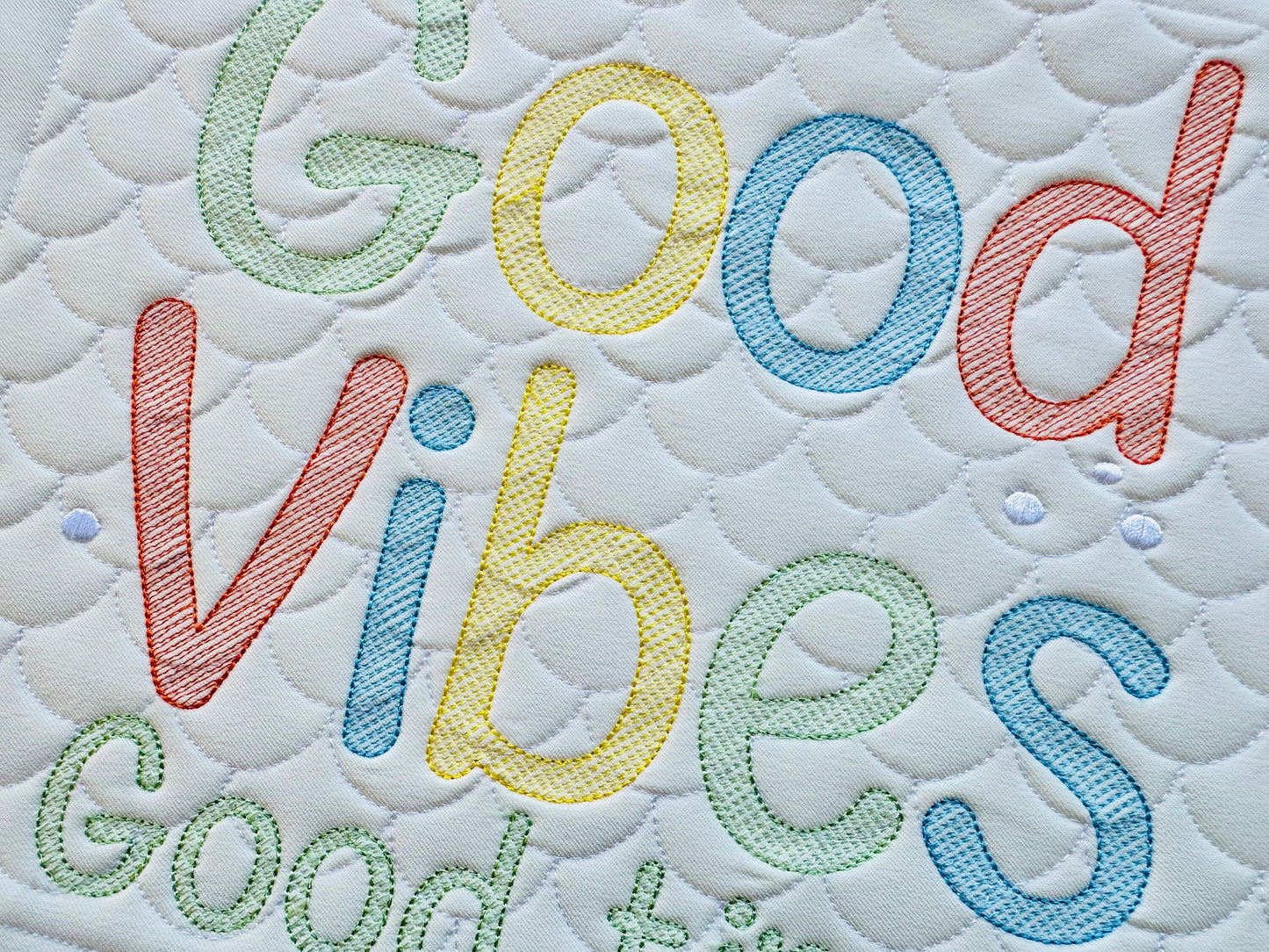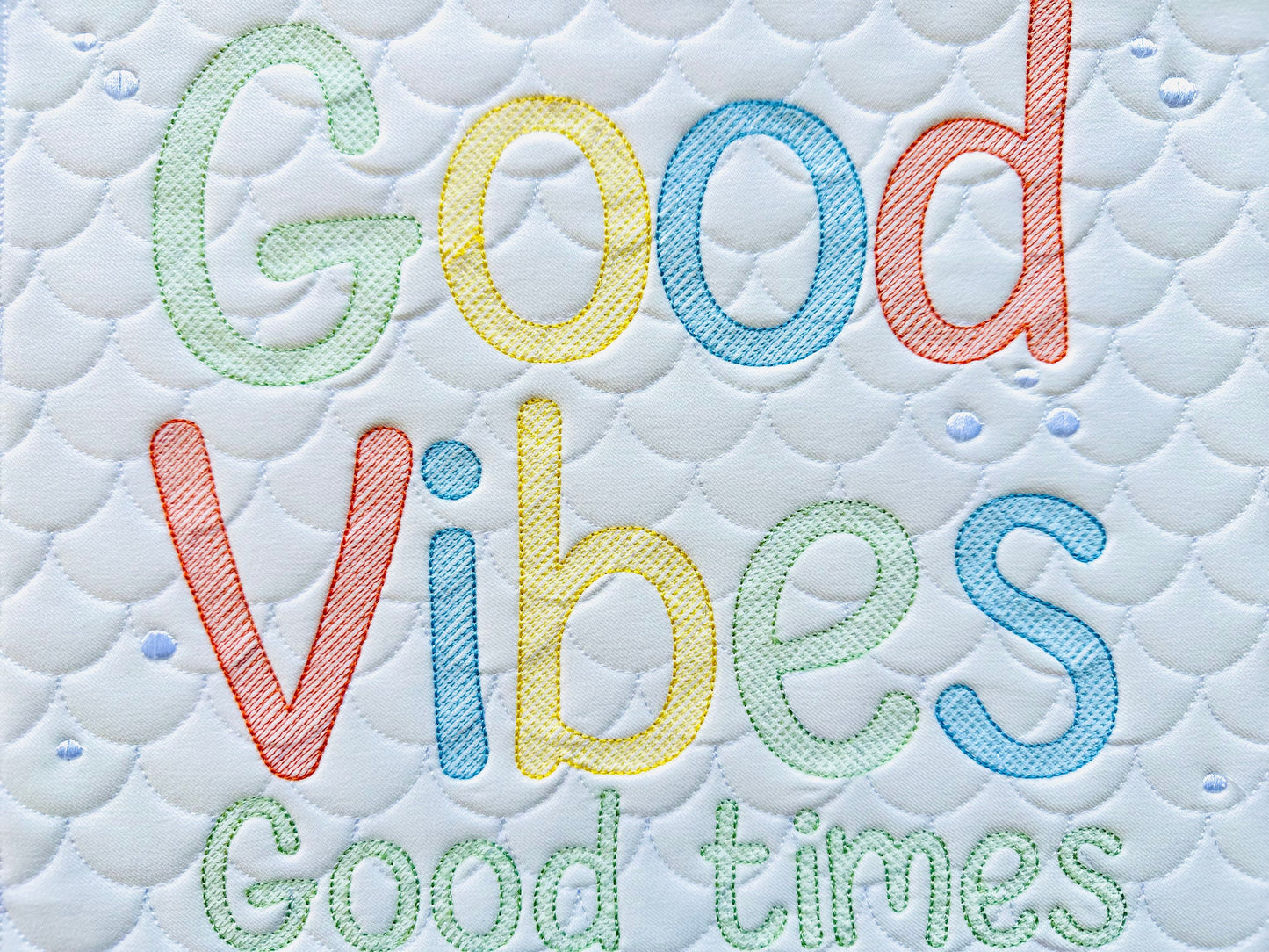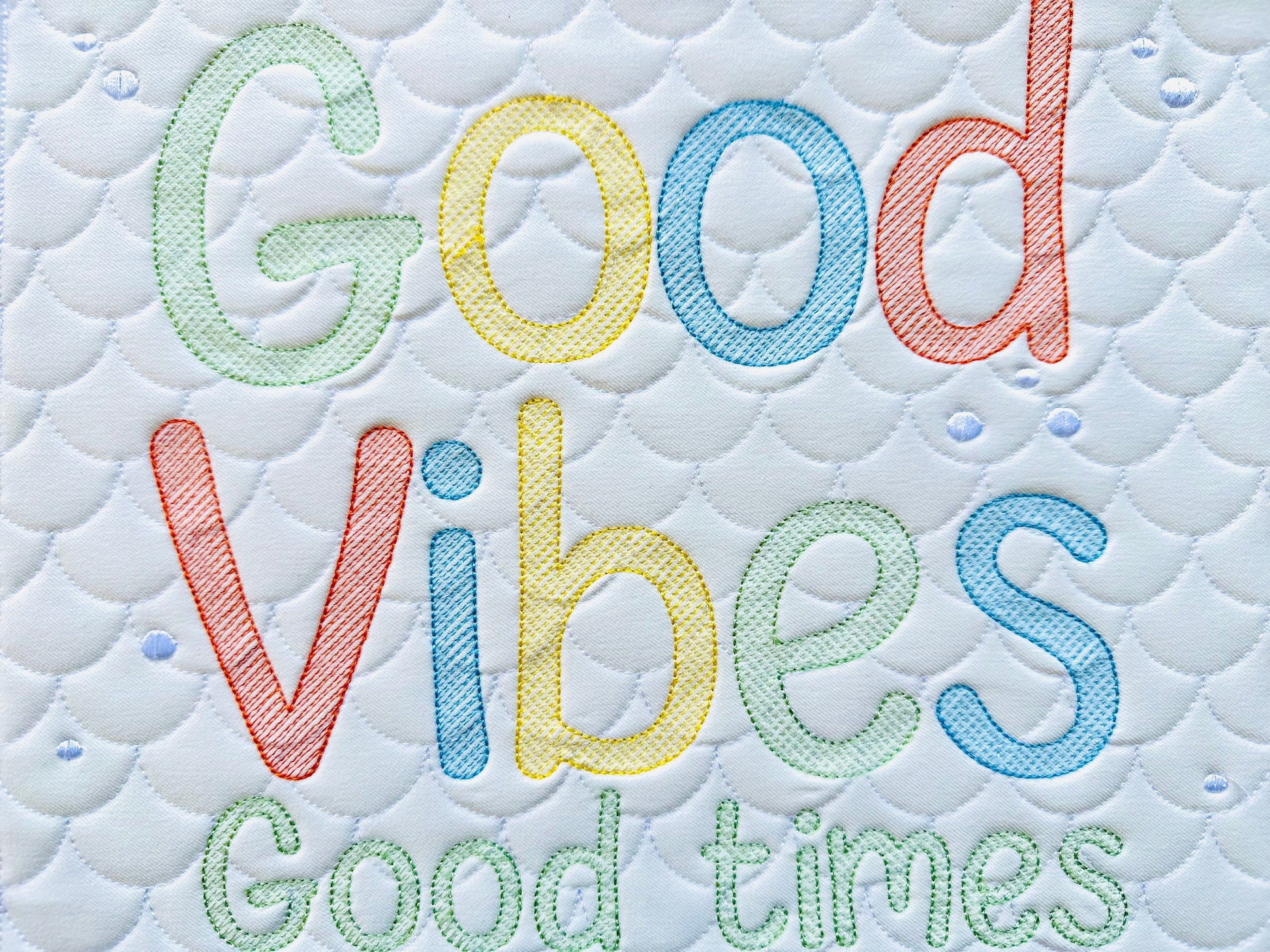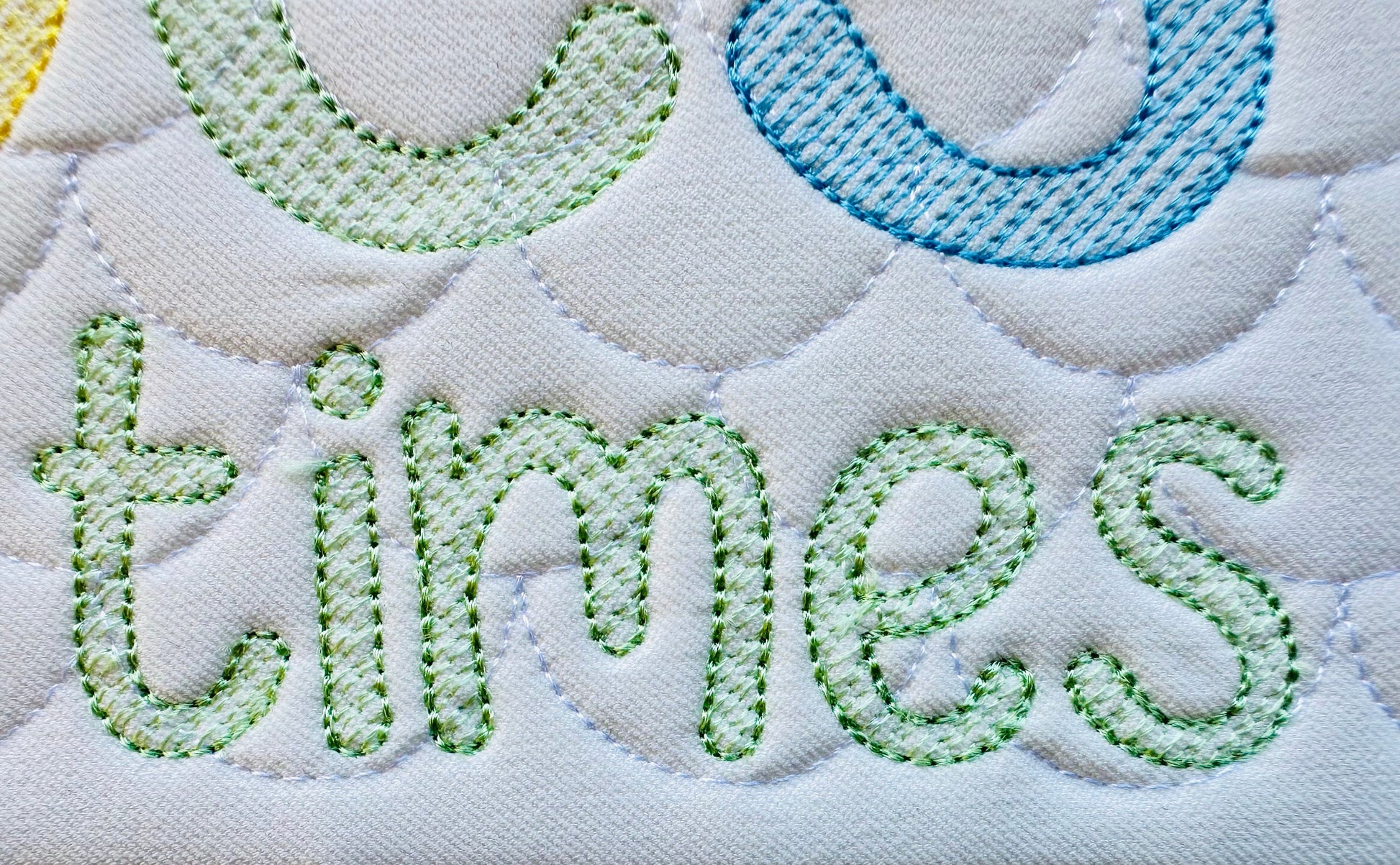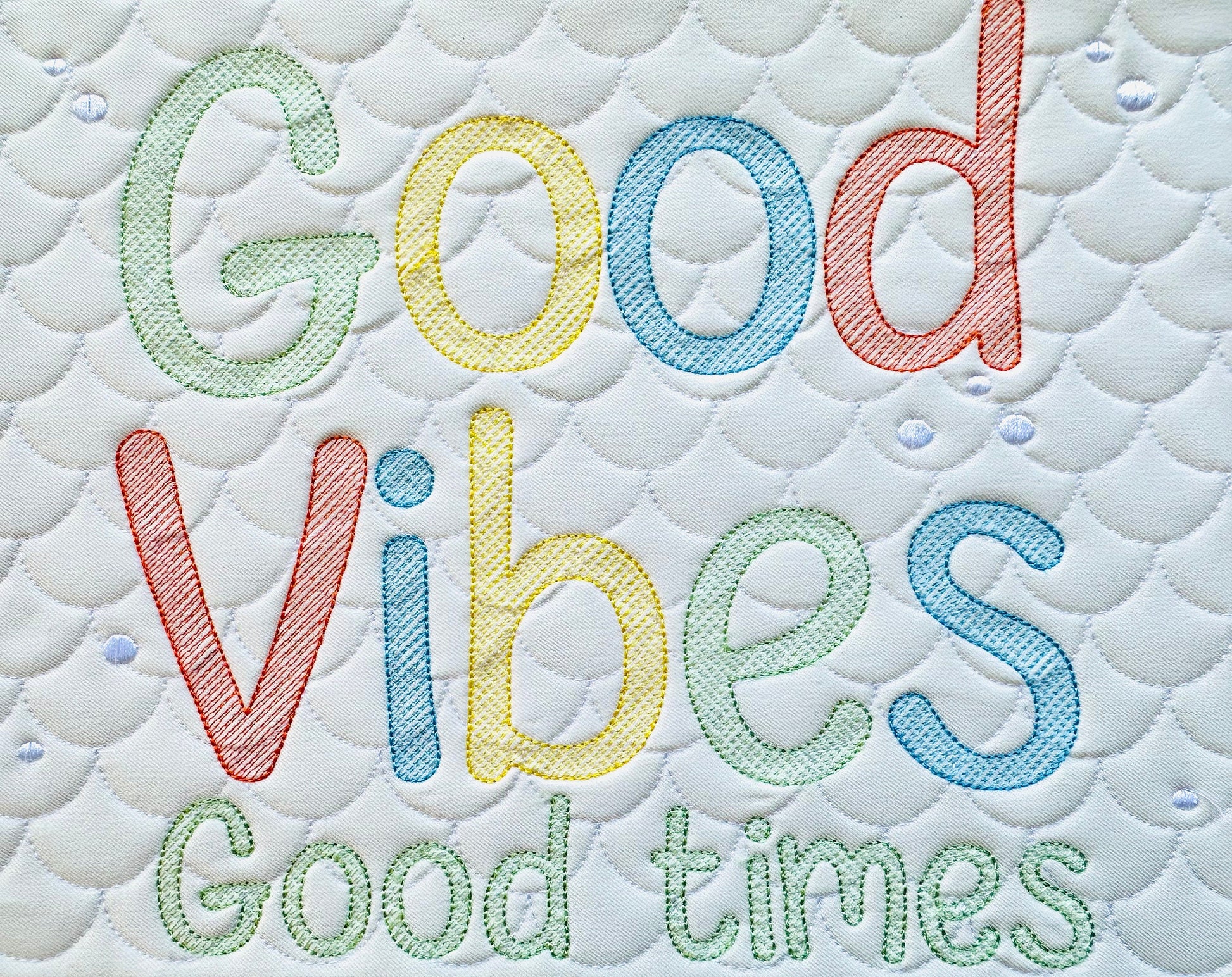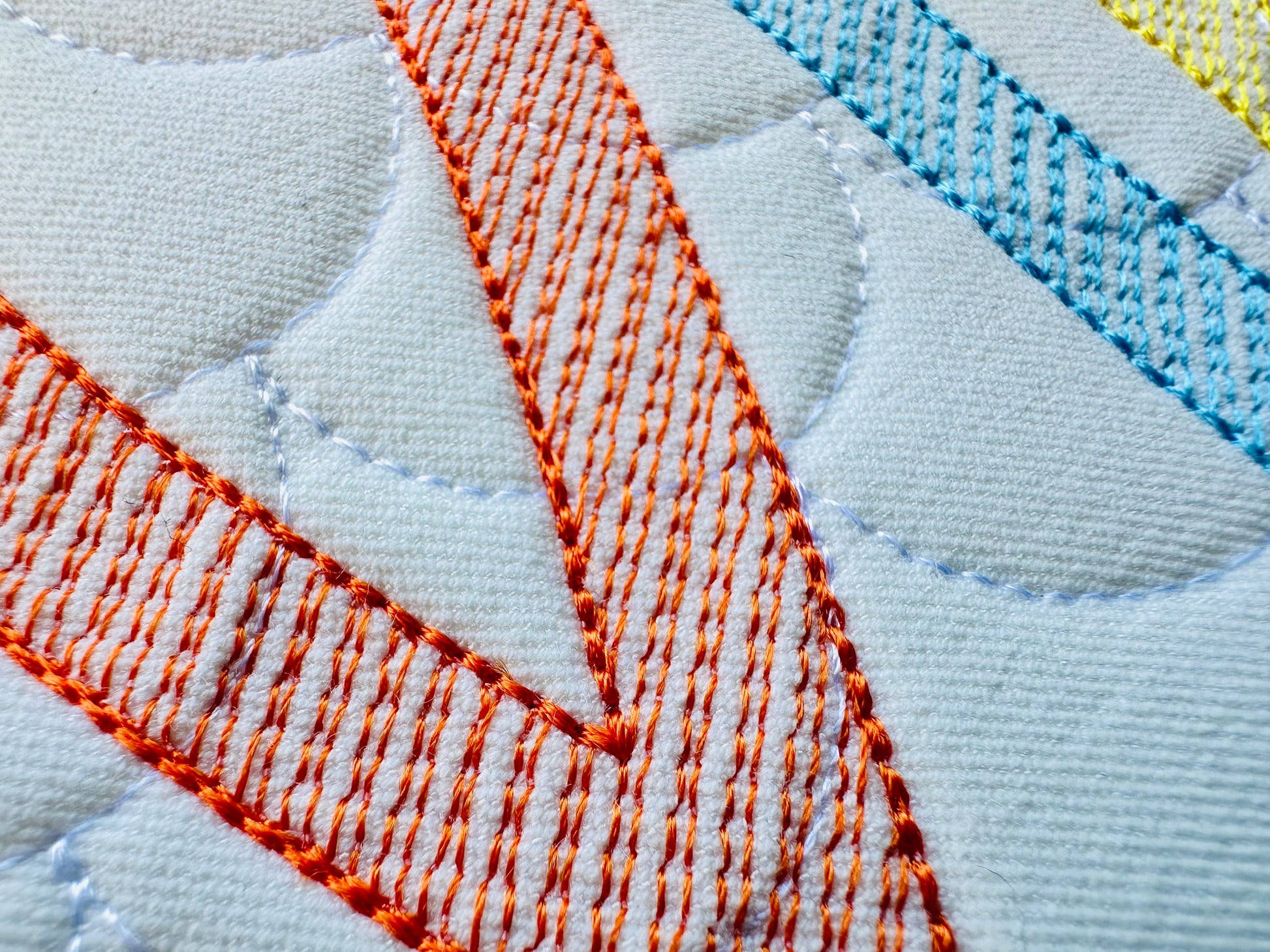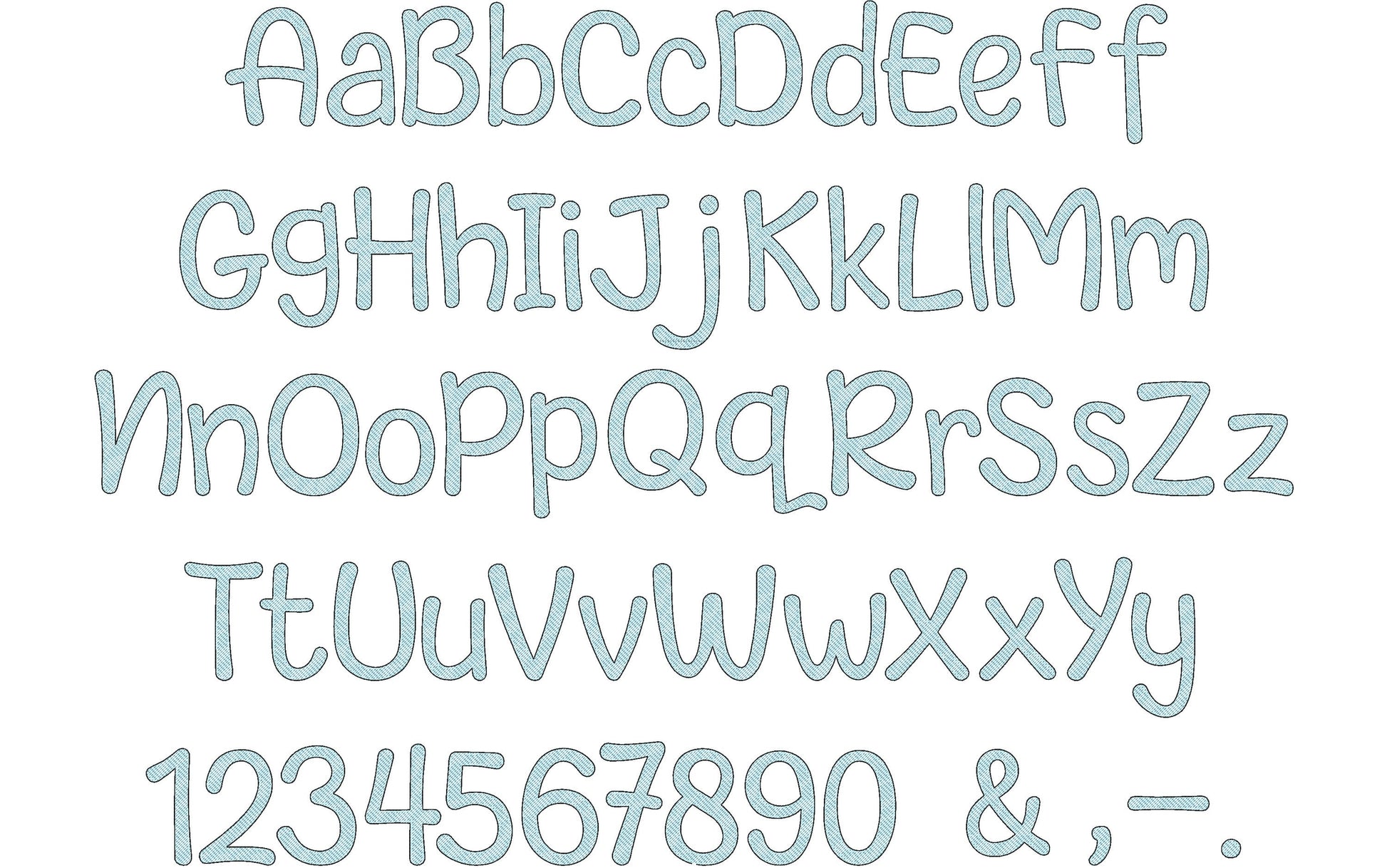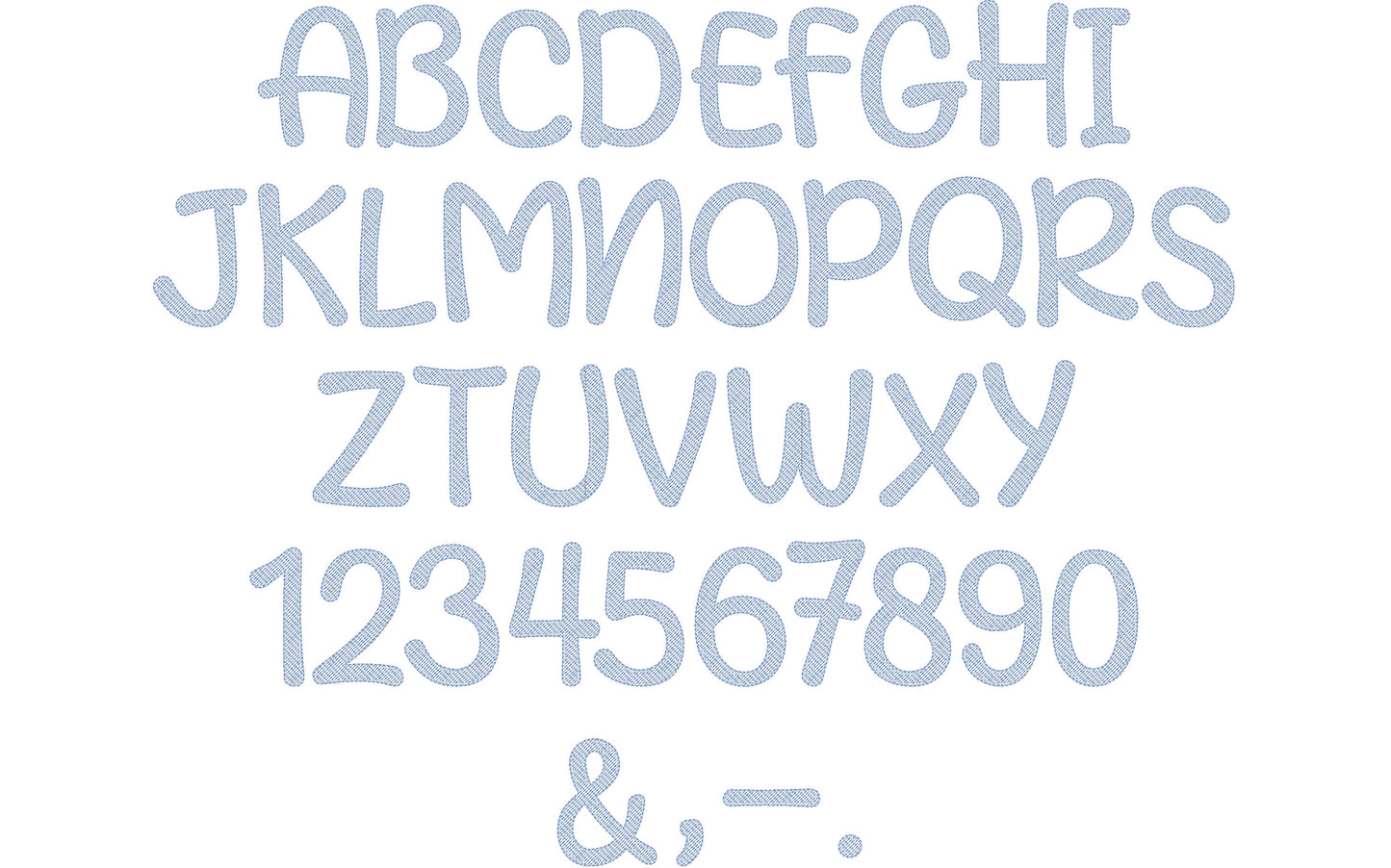
Or click to open the linkA cute, light fill stitch font with see-through letters. Great for monograms, kids' names, shirts and bags.
Uppercase and lowercase letters, numbers 0 to 9, plus &, period, comma and dash. Seven sizes: 1, 1.3, 1.7, 2, 2.5, 3.2 and 4 inches. The light fill lets the fabric show through.